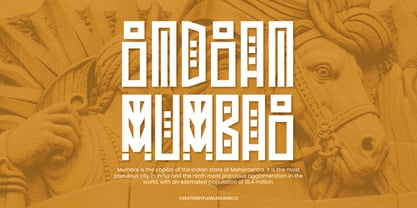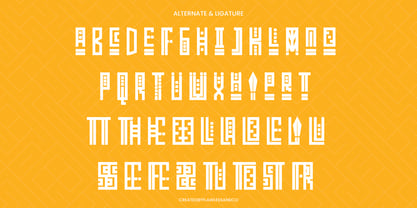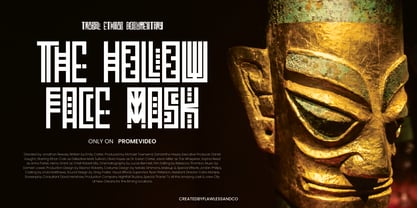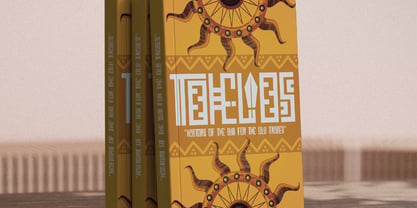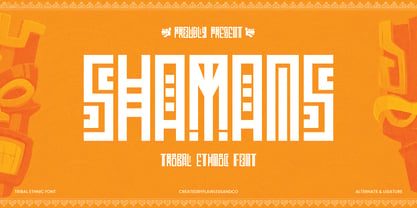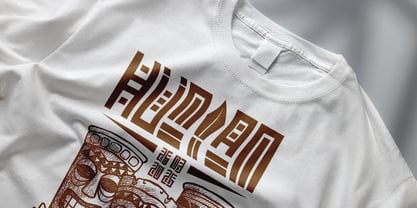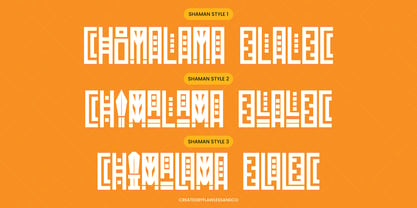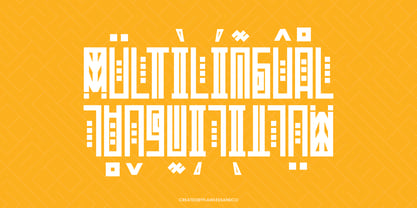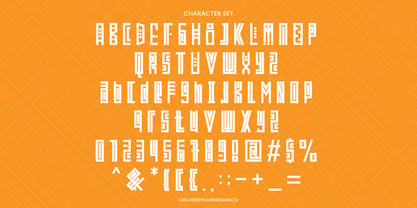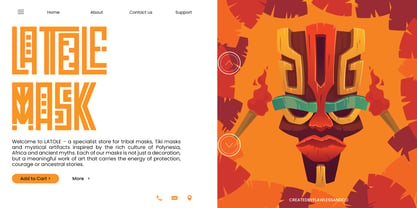
Shamans
Die Schriftfamilie Shamans wurde von Achmad Yani entworfen und von Flawlessandco veröffentlicht. Shamans enthält 1 Stile. Mehr über diese Familie
Shamans a unique tribal ethnic font inspired by ancient cultures, indigenous patterns, and spiritual symbolism. This display typeface blends primitive forms and rhythmic geometric elements to create a bold, organic visual language. Perfect for projects that seek authenticity, tradition, and cultural depth, Shamans works beautifully for tribal-themed posters, festival branding, music covers, fashion labels, ritual-inspired products, or heritage-based visuals. Its handcrafted, raw aesthetic captures the essence of folklore and mysticism, making it a striking choice for creative projects with strong cultural roots.
Features :
Multilingual, Uppercase alphabet A-Z, Lowercase alphabet a-z, Numbers 0-9, Some punctuation, Alternates & Ligatures
Designer: Achmad Yani
Foundry: Flawlessandco